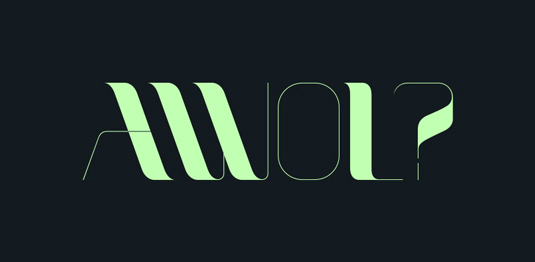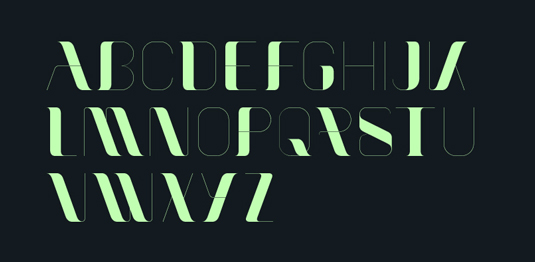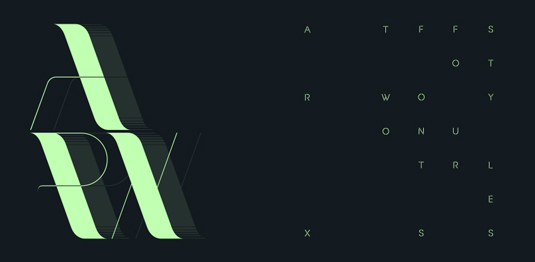
Font of the day: Arx
Each day of the week we showcase our favourite fonts – today it's Arx from Superfried.
Arx from Superfried
Today's typeface of choice is Arx, from the team at London-based design studio Superfried. An elegant and intricate display typeface, Arx is designed for use at large scale.